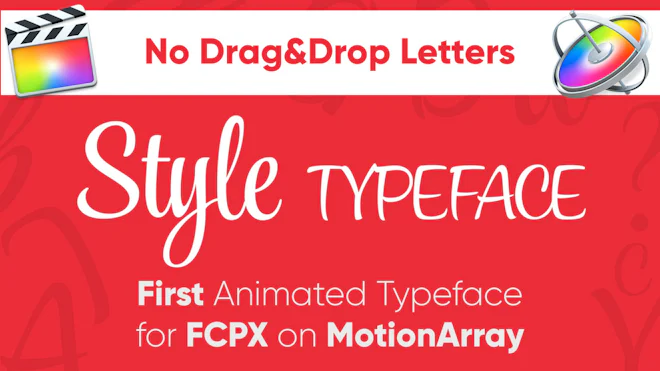
Style – Animated Handwriting Typeface for FCPX and Apple Motion 5 is a Full HD resolution and fully customizable typography title template. It can be used in several video projects like vacation, holidays, invitations, greeting cards, Vlogs, romantic openers, intros and many more. Detailed Video Tutorial Included.